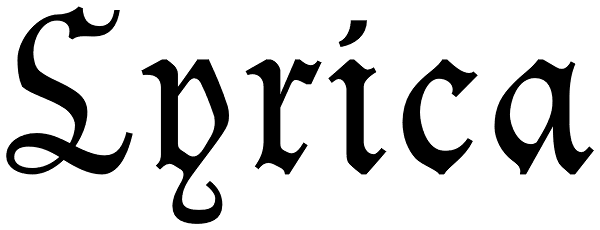
Lyrica
Lyrica - a redesign of the 1907 Ludwig & Mayer font ‘Lyrisch’ (by Georg Schiller (1858–1937)). An informal blackletter font with a cozy and familiar touch.